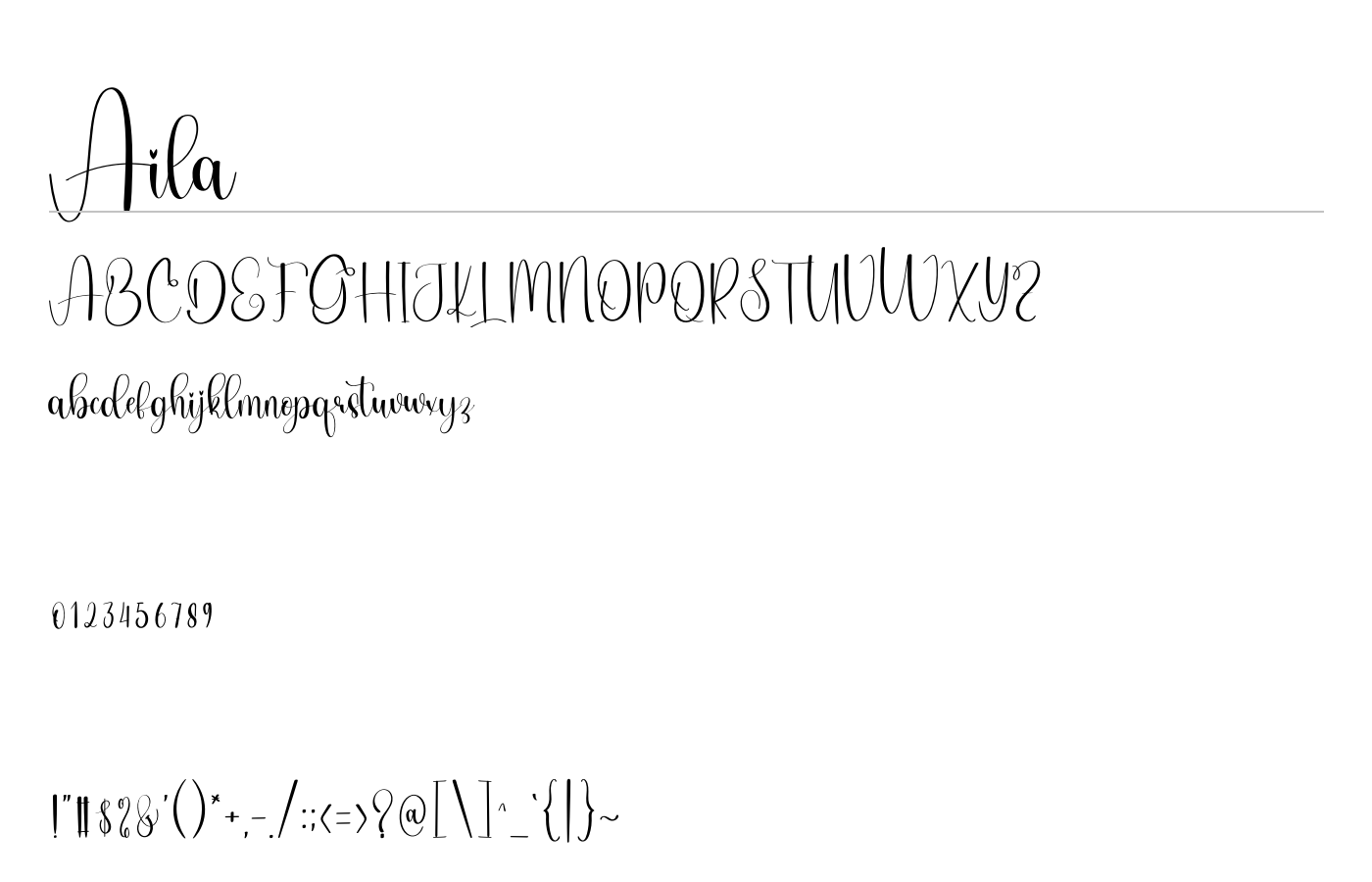
Aila is a delicate, handwritten script font characterized by its tall, slender letterforms and elegant, flowing strokes with playful heart-shaped details. Its light weight and airy spacing make it perfect for stylish branding, wedding invitations, and feminine designs where a touch of charm and sophistication is desired. This font's unique, whimsical personality shines in headlines and decorative uses, adding a graceful and modern flair.
Aila Font
About Aila Font